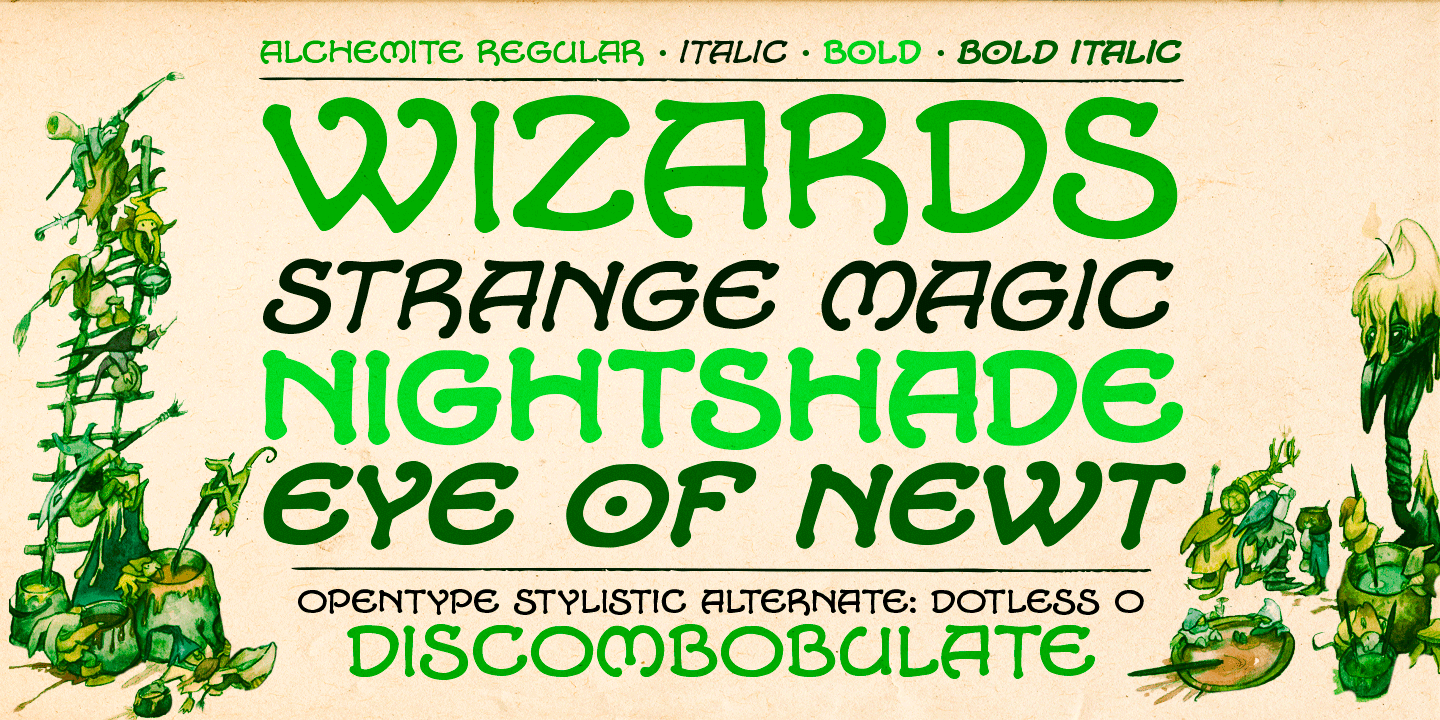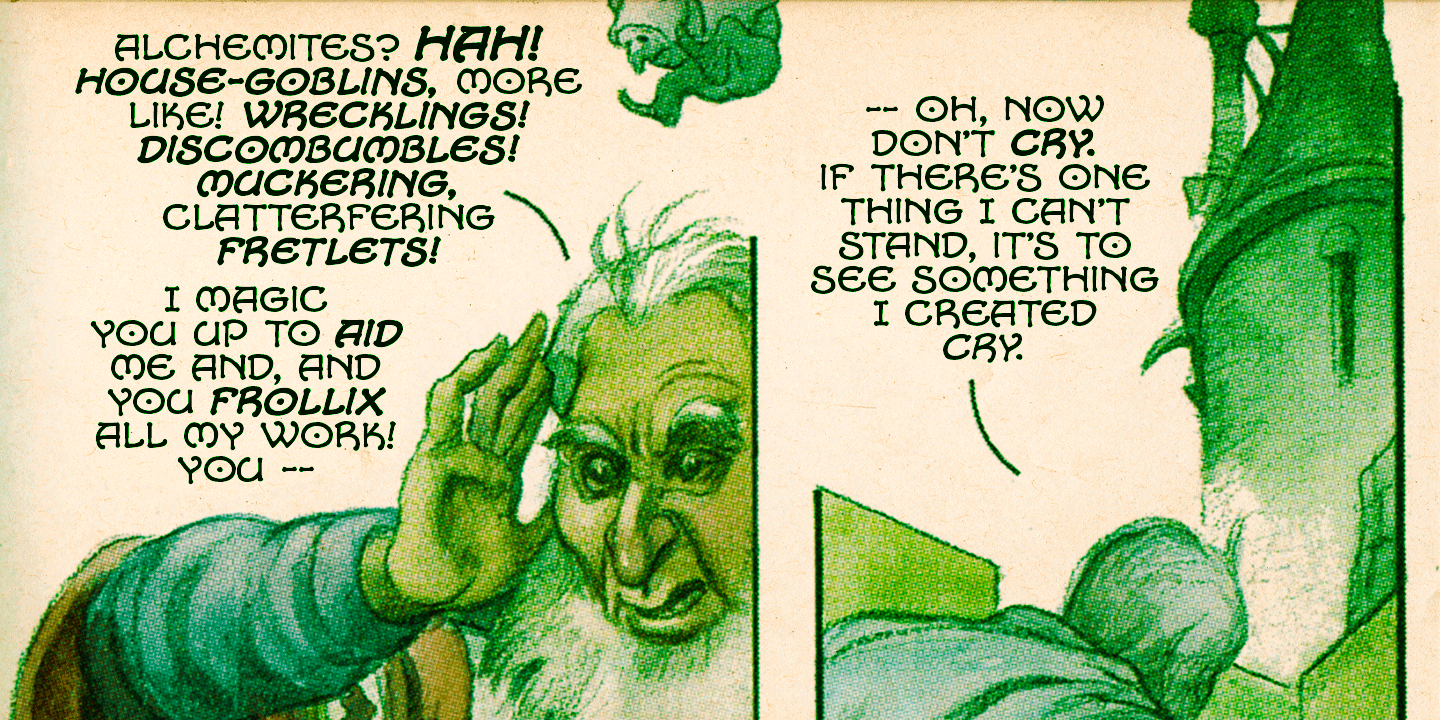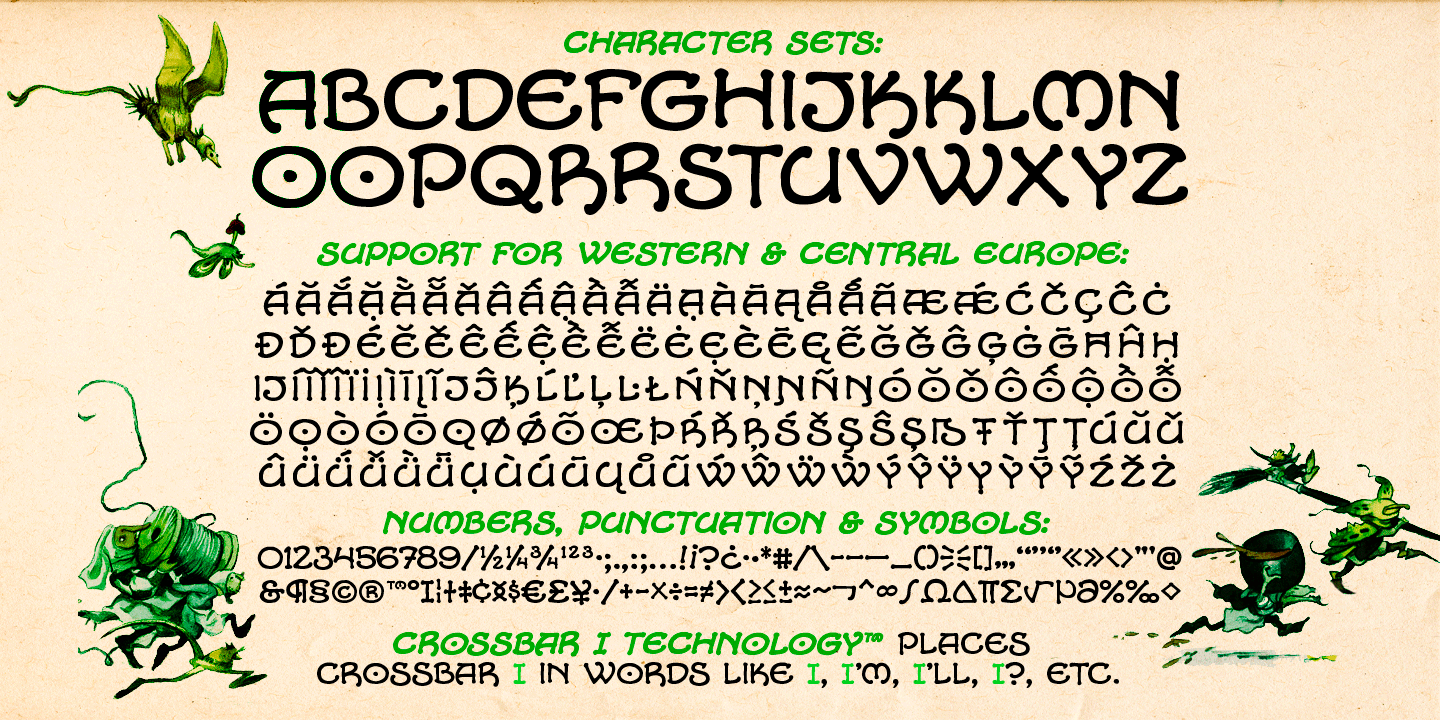
Alchemite
Font Family by Comicraft Fonts
Turn base letters into gold, bring a norse flavor to your dialogue, and may you live happily ever after! Conjured up by John Roshell of Comicraft for Kurt Busiek and David Wenzel's THE WIZARD'S TALE, this font should be handled with great care, lest it turn you into a toad.